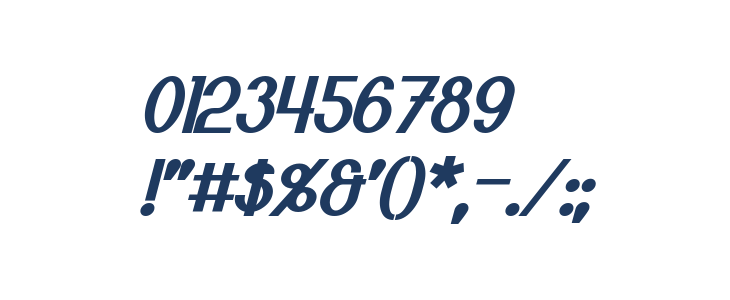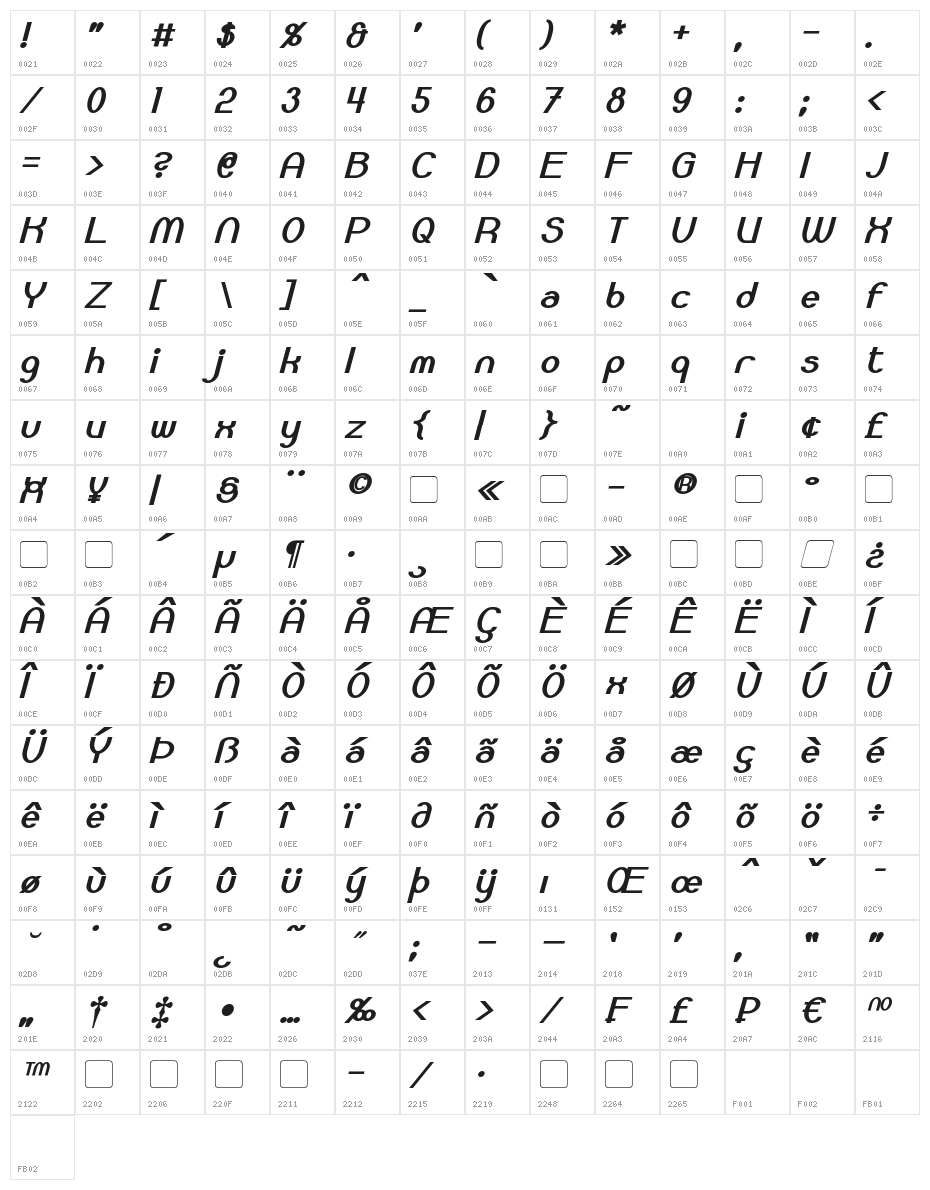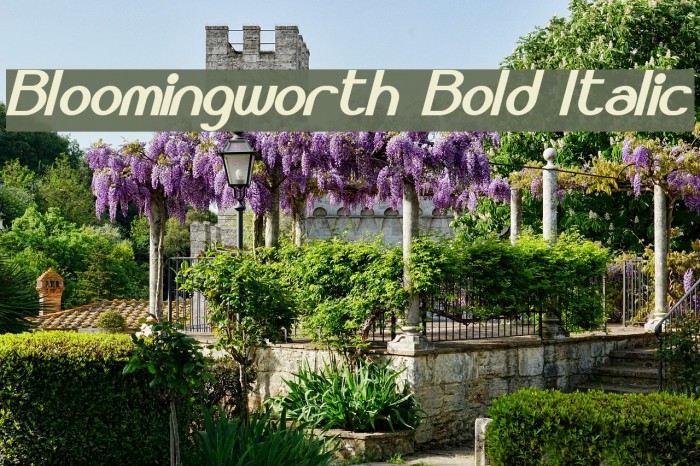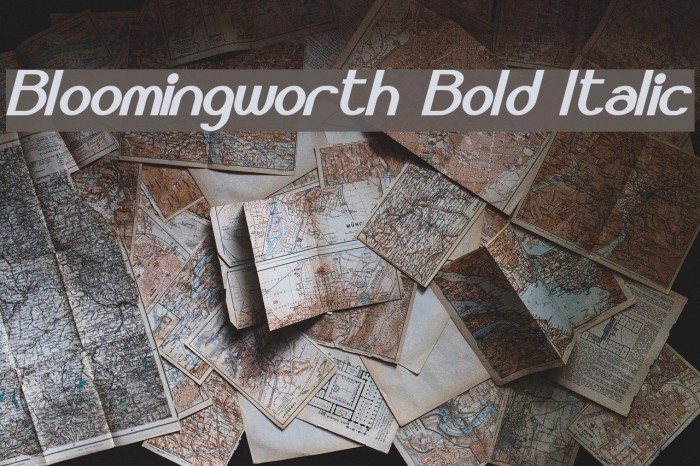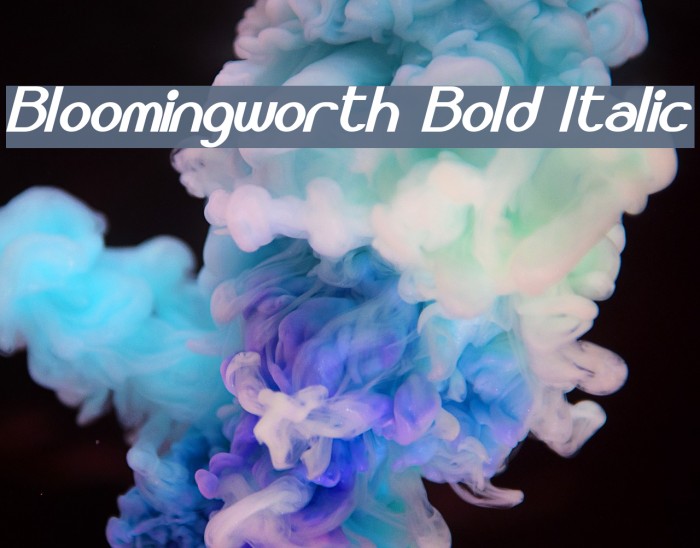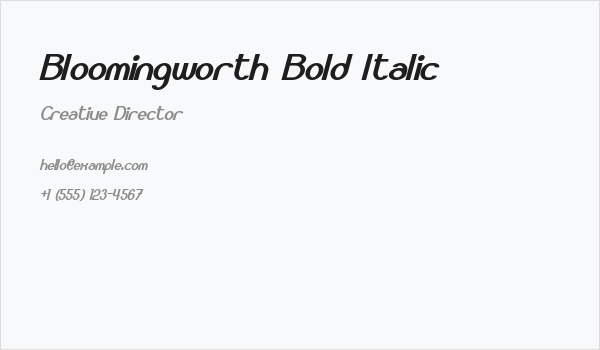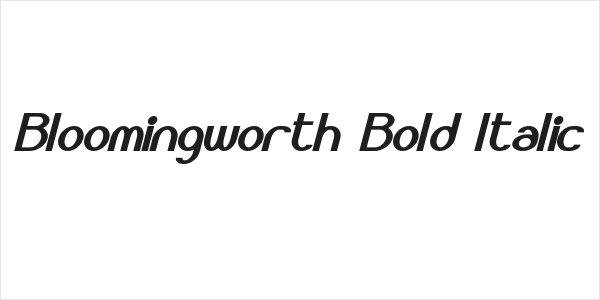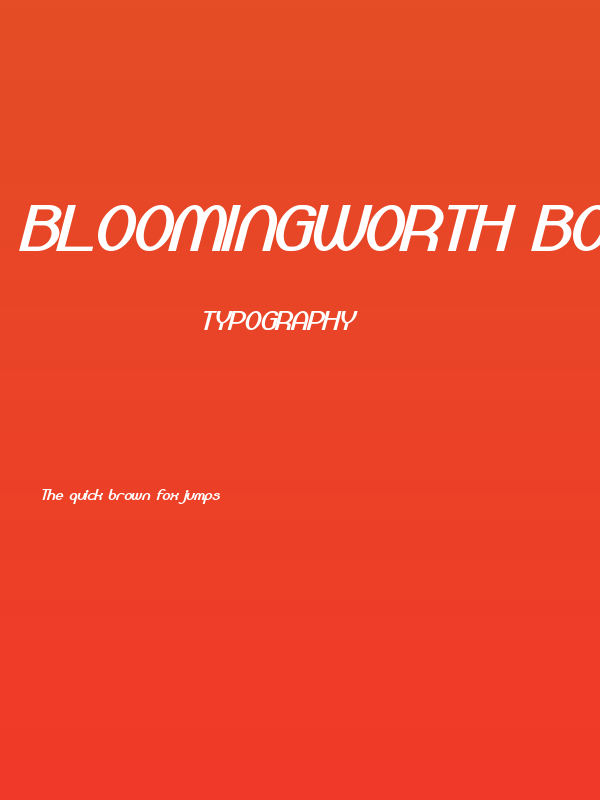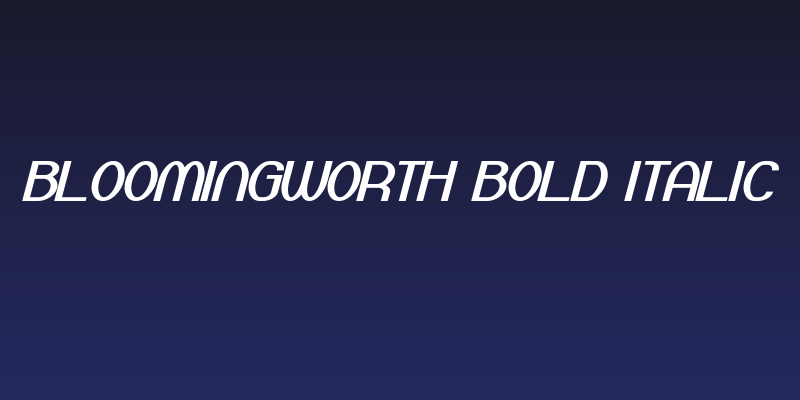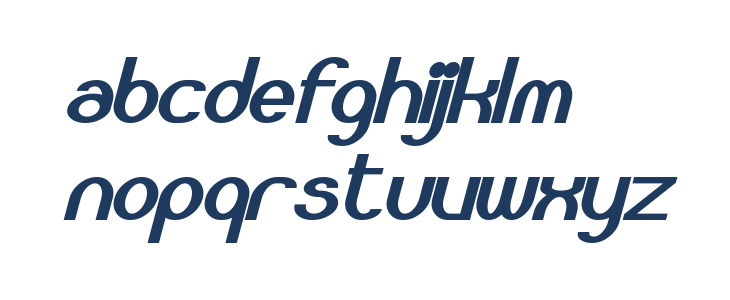
Bloomingworth Bold Italic Font
Bloomingworth Bold Italic Description
This font features a bold and italic style, characterized by its strong, slanted letterforms that convey a sense of motion and dynamism. The uppercase letters are tall and slightly condensed, while the lowercase letters maintain a consistent flow with rounded edges. The numerals are clear and distinct, matching the overall boldness of the alphabet. Special characters are designed to complement the letters, maintaining the same bold and italicized style. The font's design is modern and sleek, making it suitable for a variety of contemporary applications.